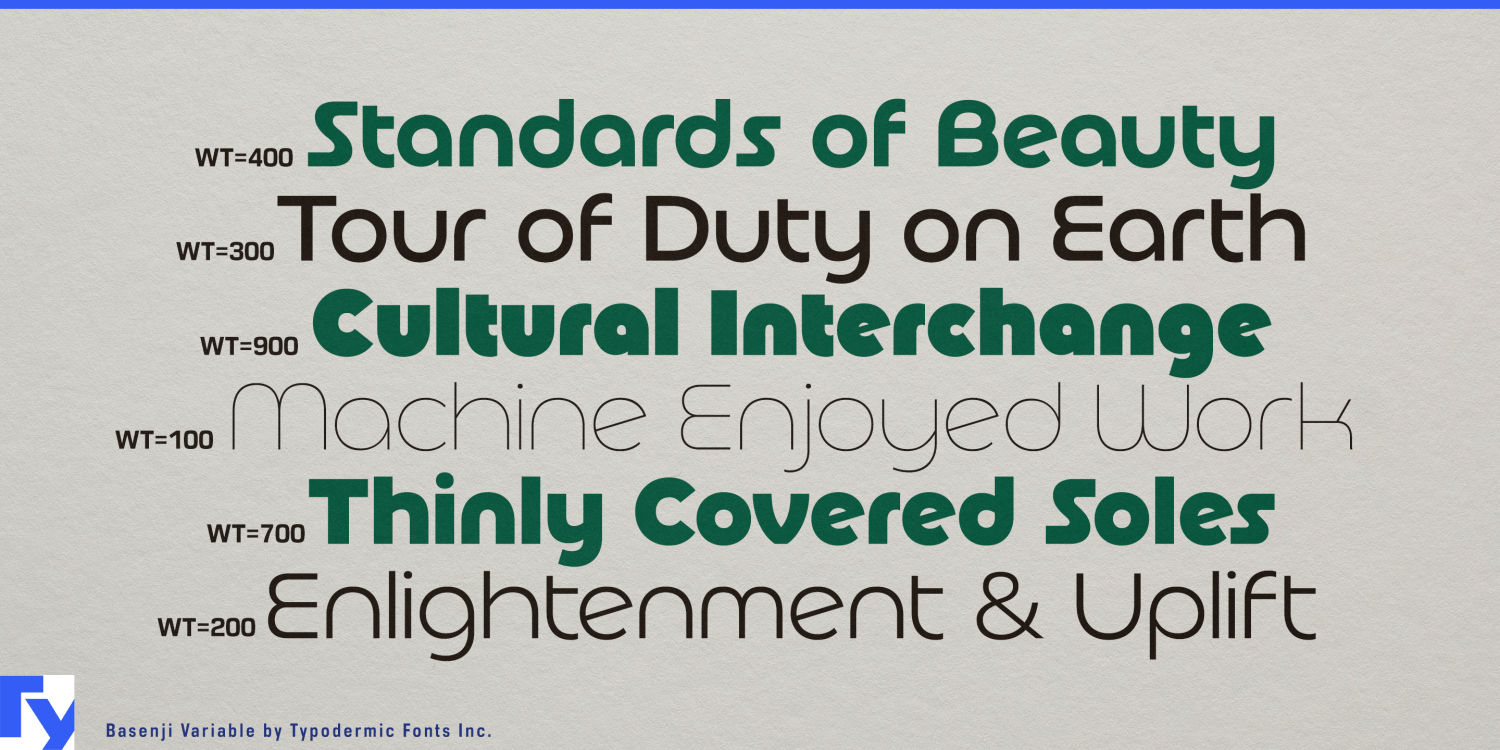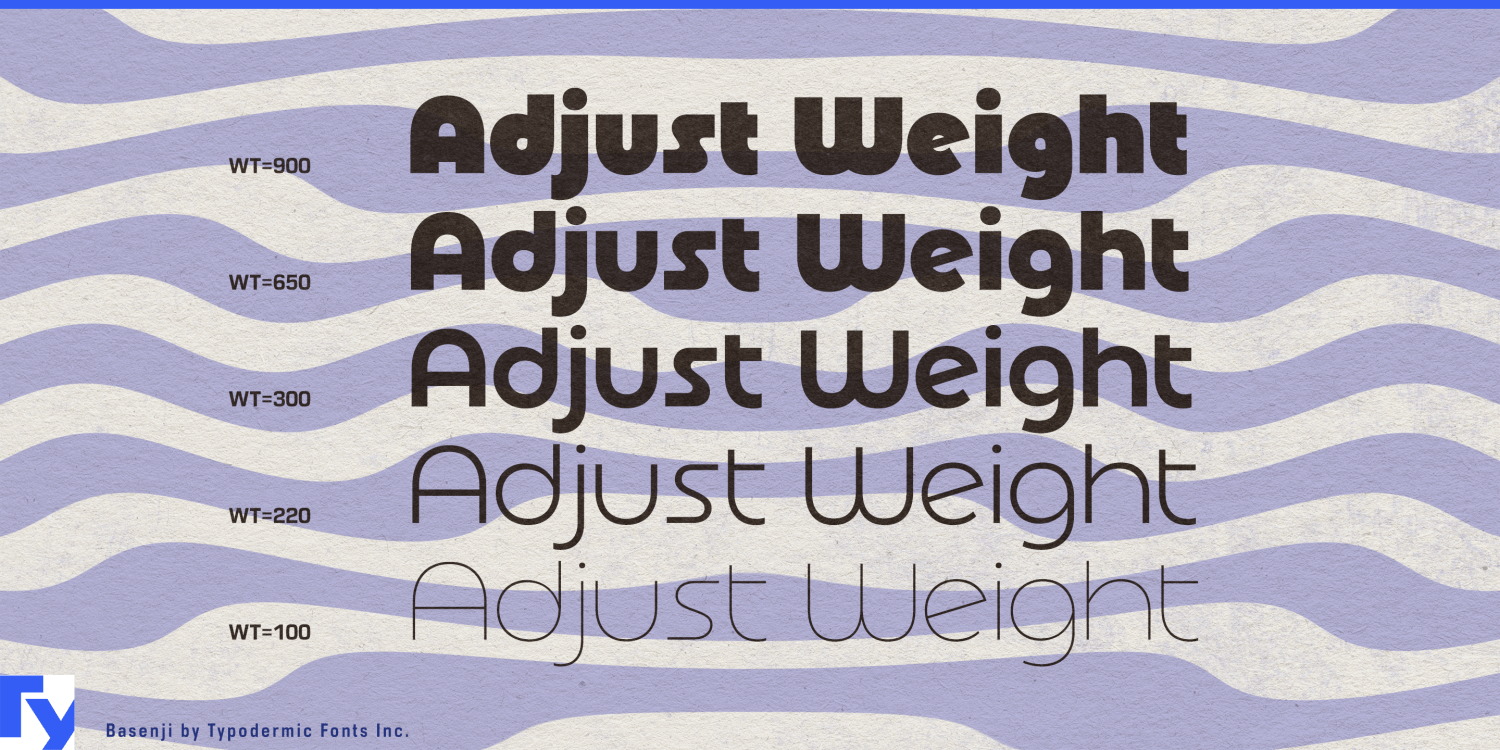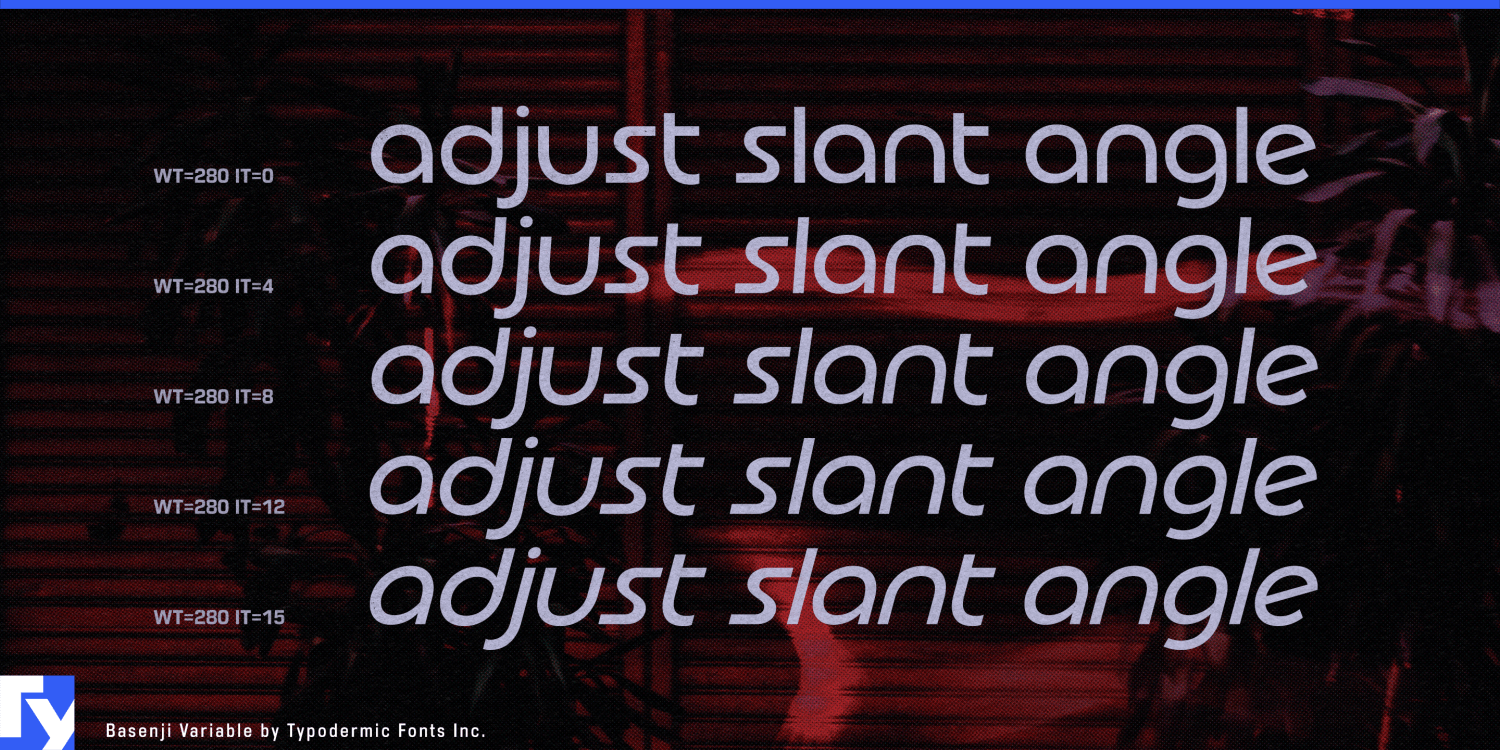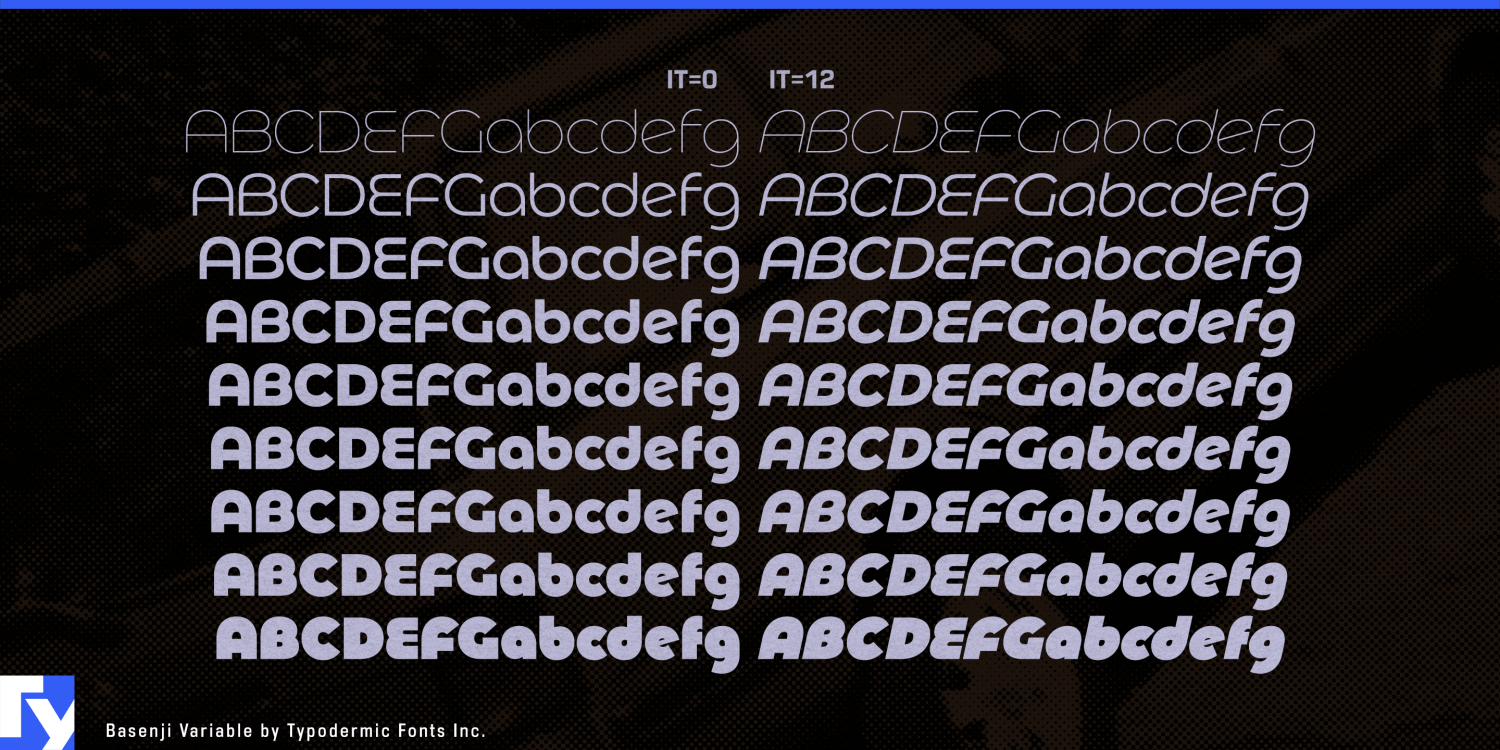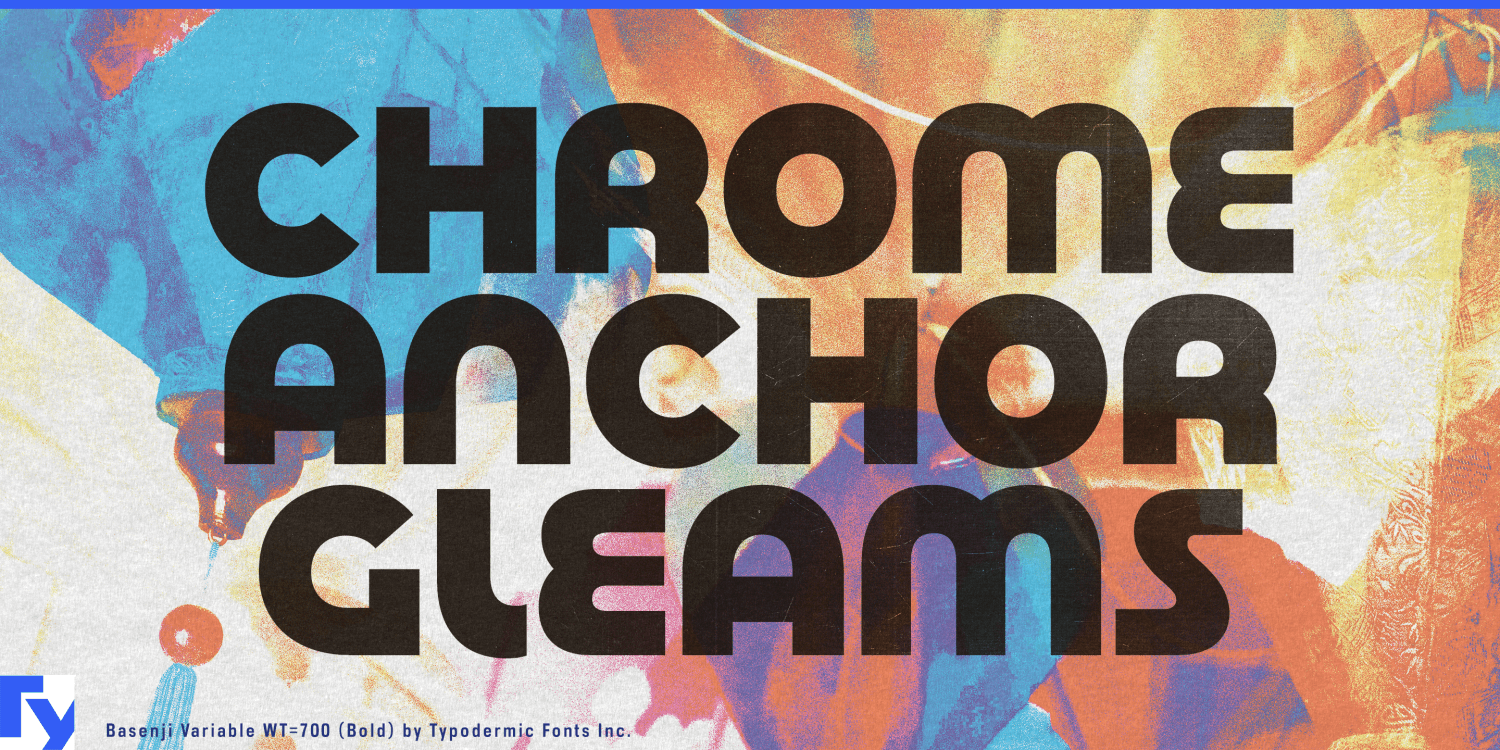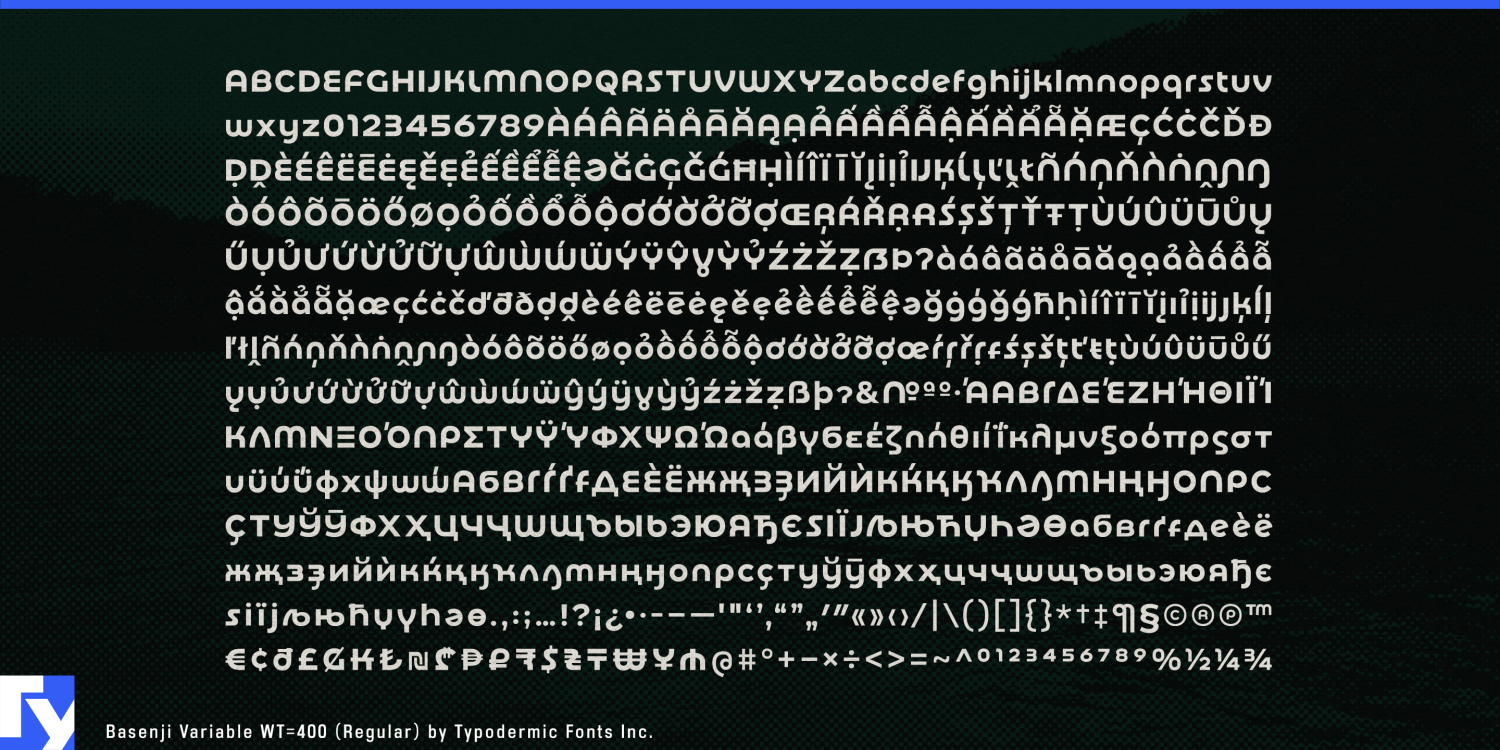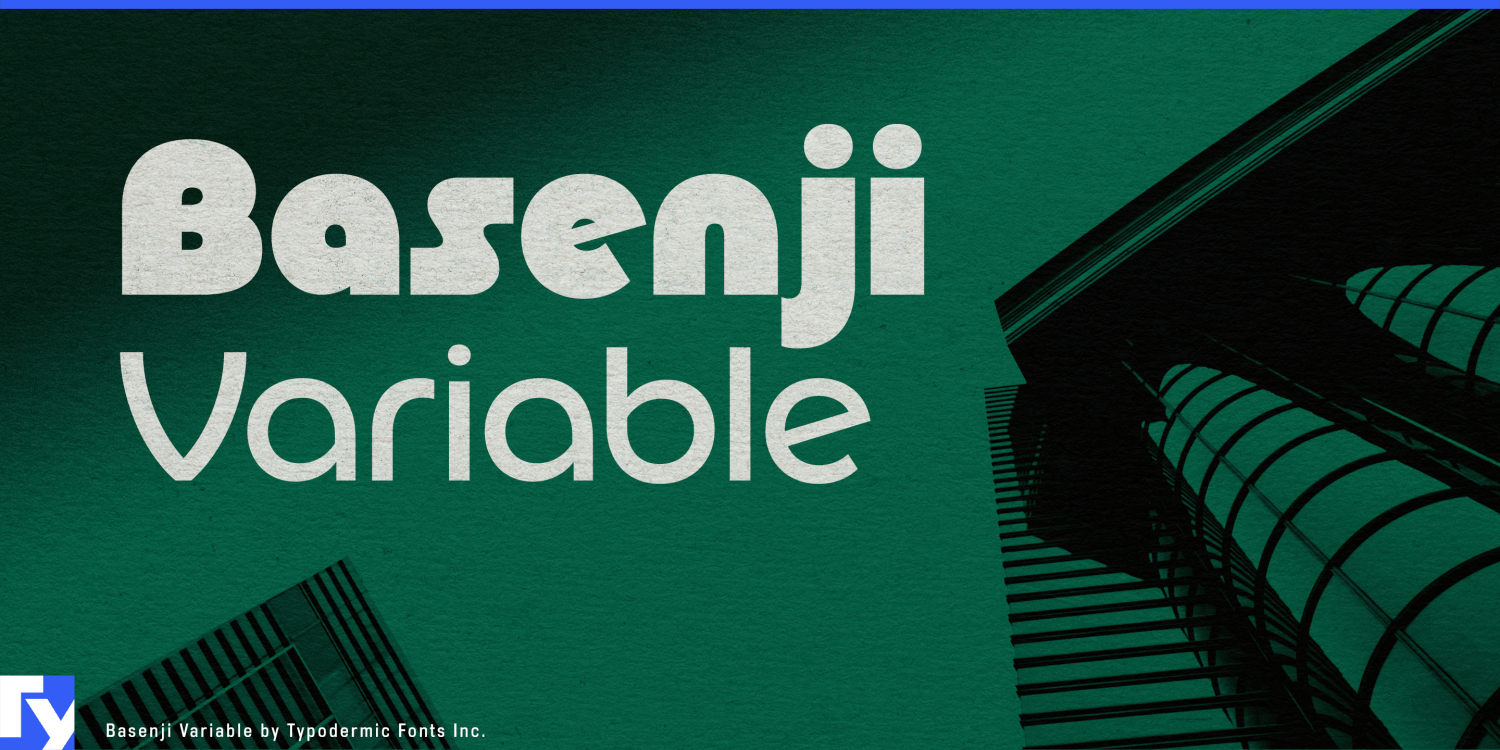
Basenji Variable
About Basenji Variable
Introducing Basenji Variable, a cutting-edge typeface that marries the charm of 1970s geometric design with the power of modern font technology. This innovative font family builds on the legacy of iconic designs like Rondo, Pump, Bauhaus, and Blippo,…